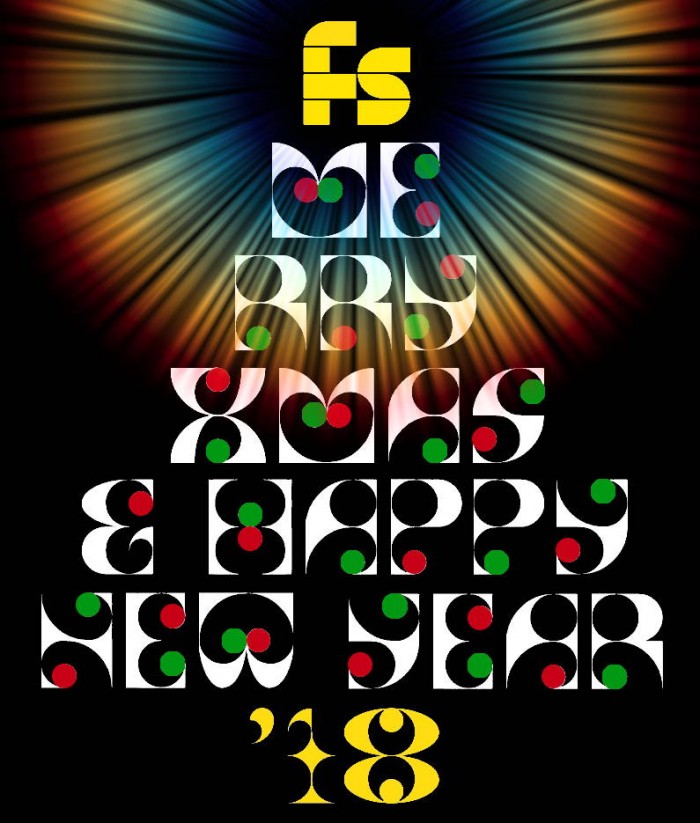
• One-brick (more or less)-font, using 2x2 filters.
"Zorionak" means "Congratulations" in euskera (one of the regional languages in Spain).
very festive. love the jingle bell terminals...or mistletoe berries :) wishing you and all FSers happiness and abundant creativity for the new year!
Very clever thinking and good problem solving, it produces a legible but fun text. Happy New Year to you and to all creatives here.
Chunky in places and charmingly slim in other places, a very attractive happy design. The sample shows how to make eye catching or festive messages. Congratulations on the TP :)